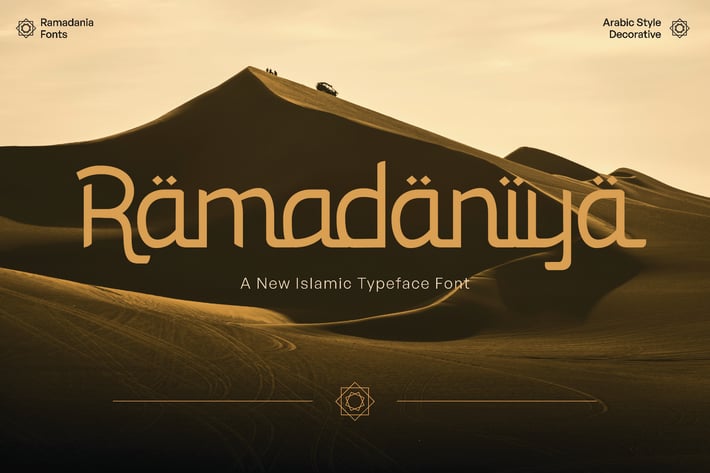
Ramadaniya Arabic Font
Ramadaniya Arabic FontRamadania is a culturally infused decorative display font that radiates elegance, calmness, and spiritual depth. With a unique nod to traditional Arabic typography, this typeface blends modern geometry with artistic heritage—creating a soulful presence in every letter.
Perfect for Islamic-inspired designs, Ramadan campaigns, Instagram posts for spiritual events, cultural packaging, and Middle Eastern-themed editorials or brochures.
Ramadaniya Arabic Font Suitable for Ramadan greeting cards, Islamic educational posters, Eid product packaging, Mosque banners, Middle Eastern travel brochures, Halal cosmetics branding, Cultural social media content, Spiritual podcast covers, Islamic school identity design, Quran study group flyers, Halal food festival logos, Arabic heritage books, Ramadhan promotional ads, Charity event posters, Muslim fashion labels, Wedding invitation cards, Faith-based journal titles, YouTube thumbnails for Islamic content, Islamic business stationery, Cultural festival identity kits.